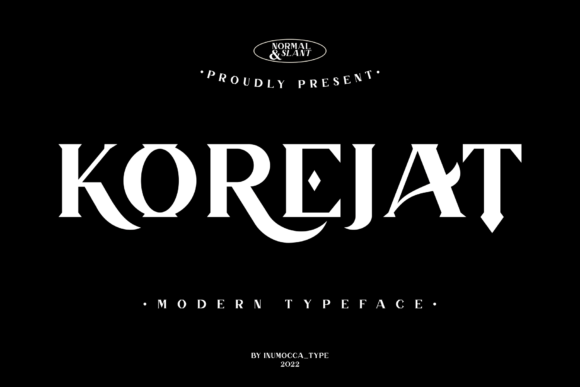
Korejat Font
Introducing Korejat Font, a captivating all-caps serif font that sparks imagination and breathes life into your creative endeavors. Korejat is not just a font; it's an artistic expression, a gateway to a world where words dance with elegance and style. Crafted with meticulous attention to detail by inumocca_type, Korejat is the ultimate choice for those seeking a font that's both modern and timeless, playful yet sophisticated.
With Korejat, create striking logos that command attention, elevate book covers to masterpieces, and transform movie titles into cinematic wonders. Unleash your creativity and craft eye-catching headlines that leap off the page and design posters that ignite the senses. Capture the essence of memorable quotes and make them shine with Korejat's distinctive charm. Korejat is PUA encoded, making it a breeze to access a treasure trove of glyphs and swashes, empowering you to add intricate details and flourishes to your designs.
Korejat is a versatile font, at home in a variety of creative projects. Its clean lines and playful personality make it ideal for branding, instantly creating a professional and memorable identity for your business. Transport your audience to otherworldly realms with Korejat's captivating movie titles, or immerse them in captivating stories with book covers adorned with its enchanting characters. Korejat brings a touch of magic to magazines, breathing life into editorials and articles, while posters designed with Korejat demand attention and captivate the gaze.
Step into a world where creativity knows no bounds with Korejat. Experience the joy of crafting designs that resonate with your audience, designs that tell stories, evoke emotions, and leave a lasting impression. Unleash your imagination and let Korejat be your creative partner, transforming your vision into reality.